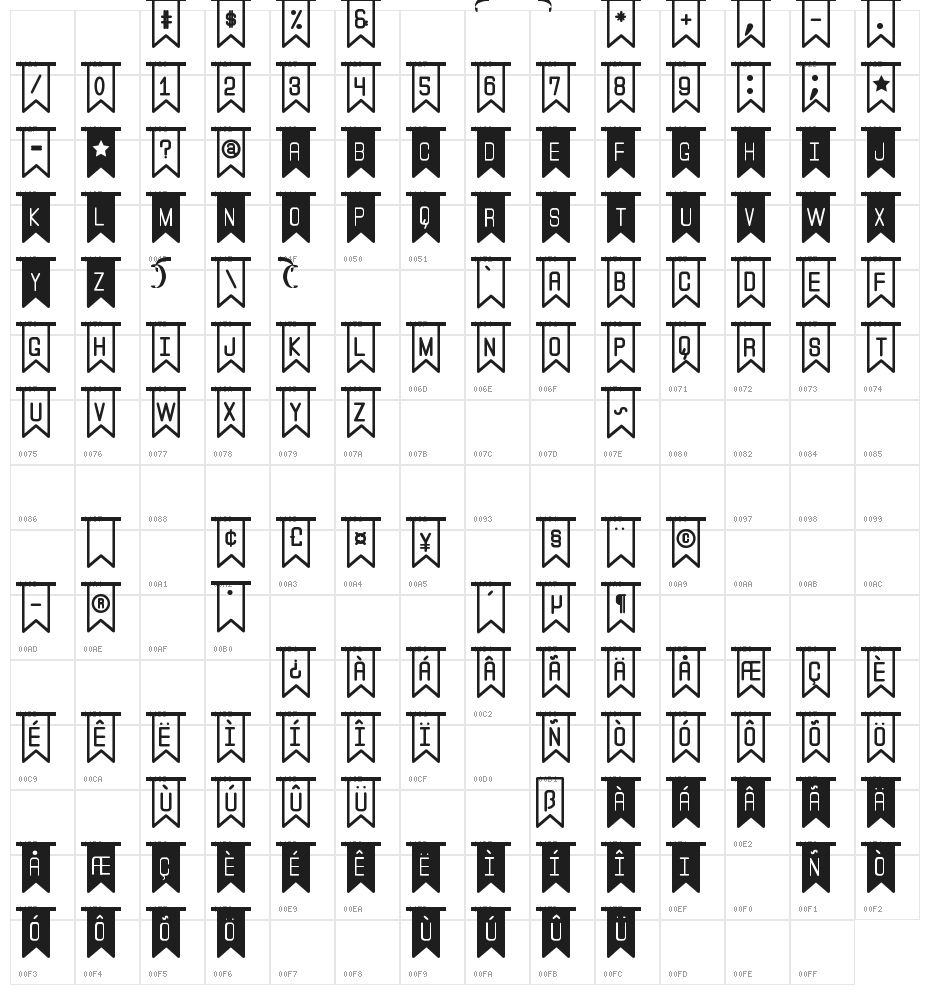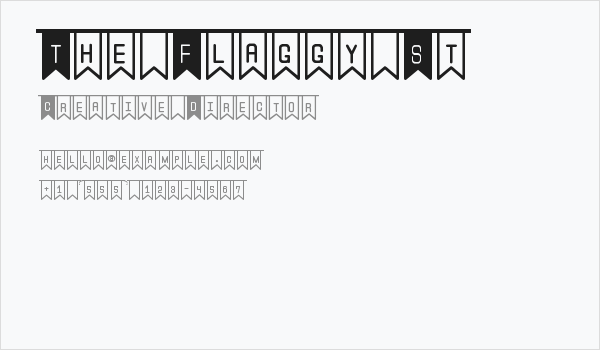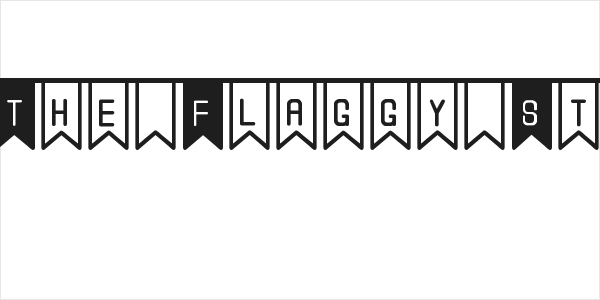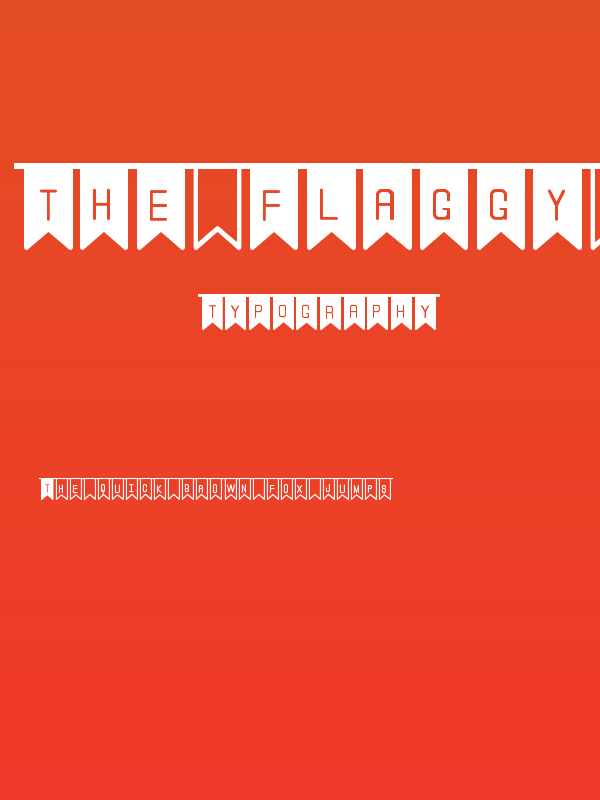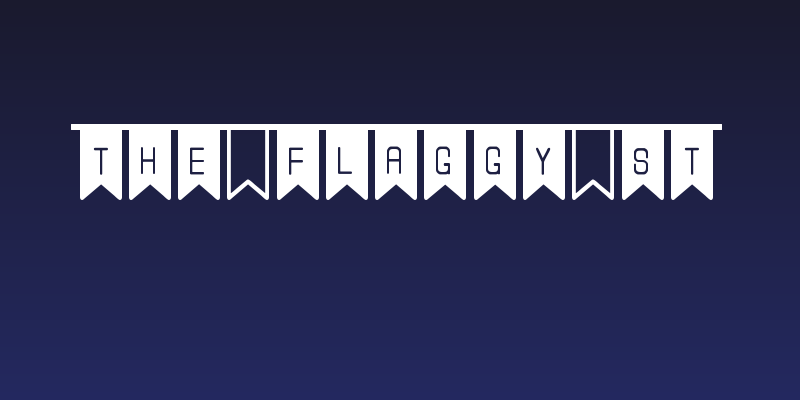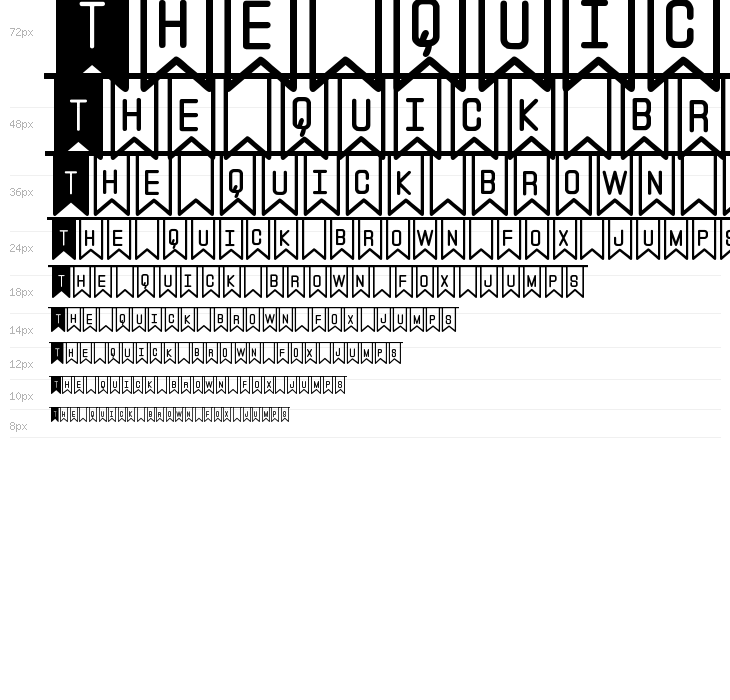
The Flaggy St Font
The Flaggy St Description
This font features a unique design where each character is enclosed within a flag-like banner, creating a playful and decorative appearance. The uppercase and lowercase letters, as well as numbers and special characters, are all presented in a consistent style with bold outlines. The flags have a triangular cut at the bottom, enhancing the festive and celebratory feel. The characters themselves are sans-serif, with clean lines and a modern aesthetic. This font is ideal for projects that require a fun and eye-catching display, such as party invitations, banners, or children's events.
| Proposed Projects | Perfect for party invitations, festive banners, children's event materials, and decorative signage. |